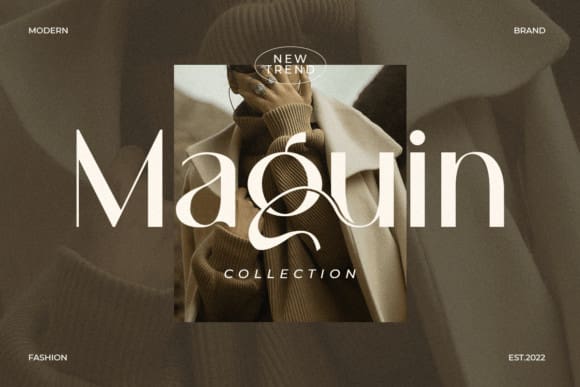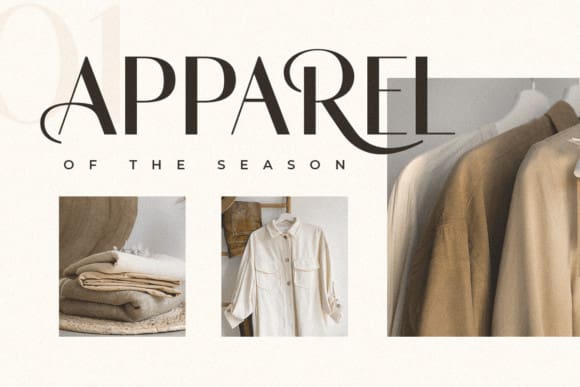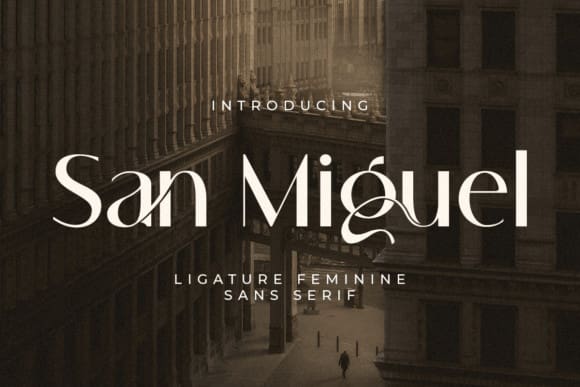
San Miguel Font
San Miguel Font is an elegant serif font, that features a very delicate and classy look. Not too thin and not too thick, balanced and varied, SanMiguel was designed to enhance the beauty of your projects.